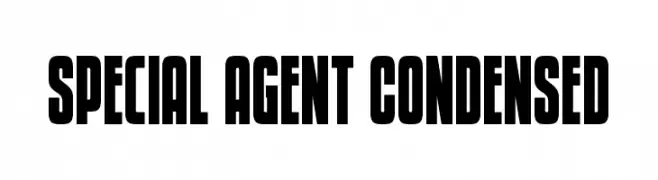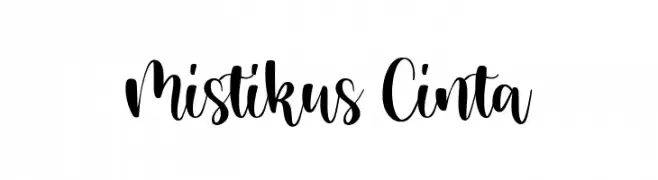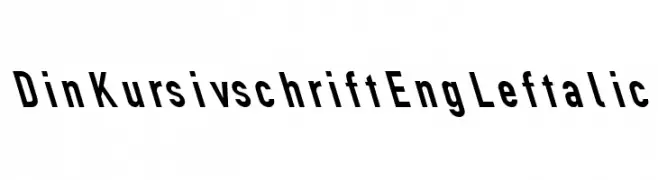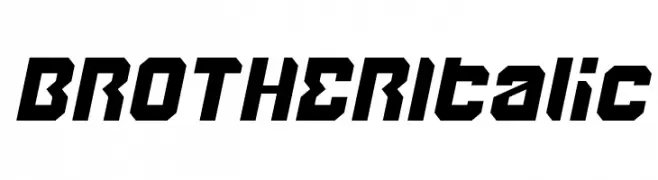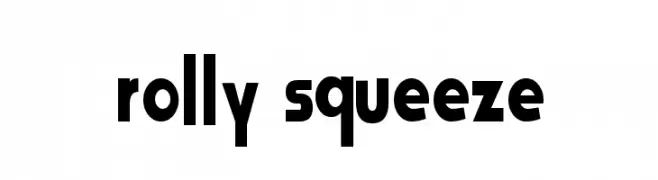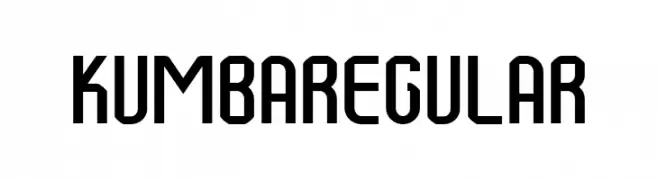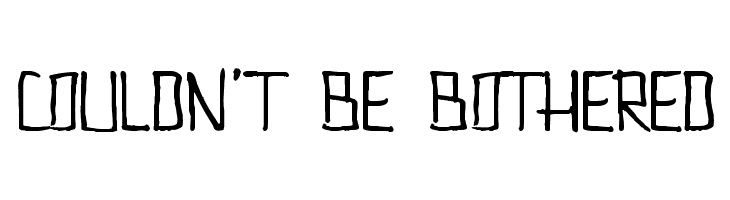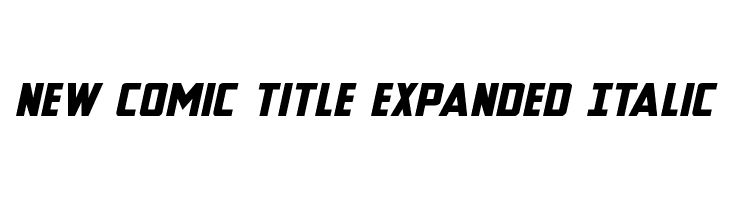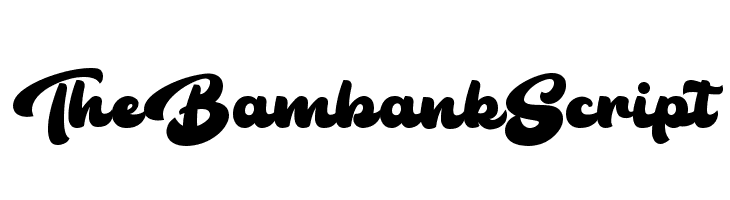
A playful, hand-drawn font with tall, narrow letters and quirky symbols.
A bold, condensed font with thick strokes and minimal spacing.
A flowing, cursive font with elegant, interconnected strokes.
A bold, left-italic sans-serif font with a modern and dynamic style.
A bold, italicized font with angular, geometric characters.
A bold, geometric font with rounded edges and a playful, modern style.
A futuristic, angular font with a slanted, geometric design.
A bold, expressive script font with fluid, interconnected strokes.
A bold, geometric font with a modern, industrial style.